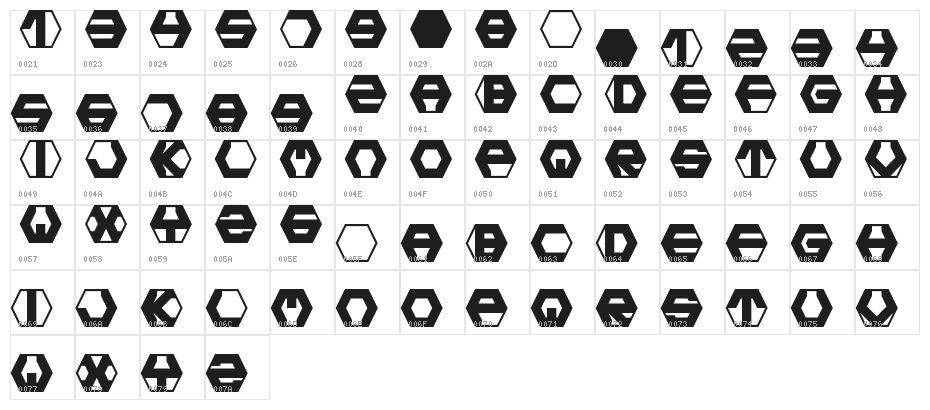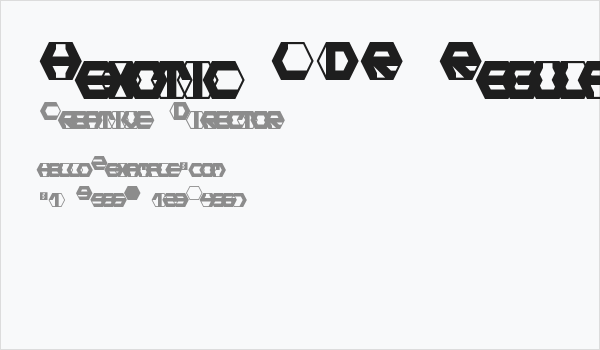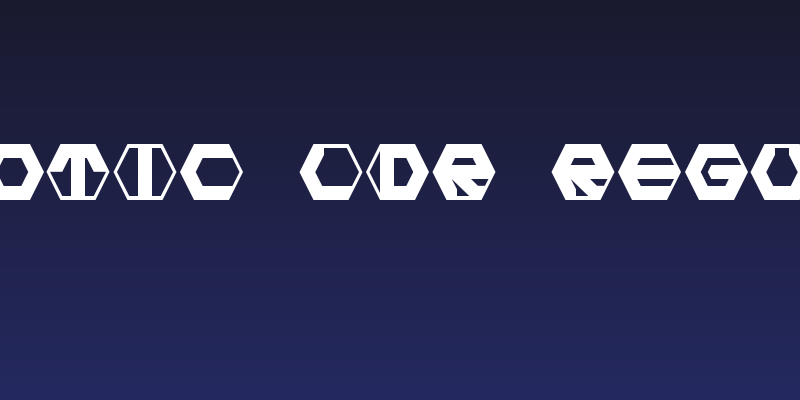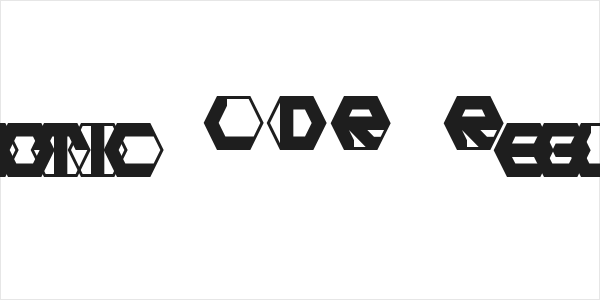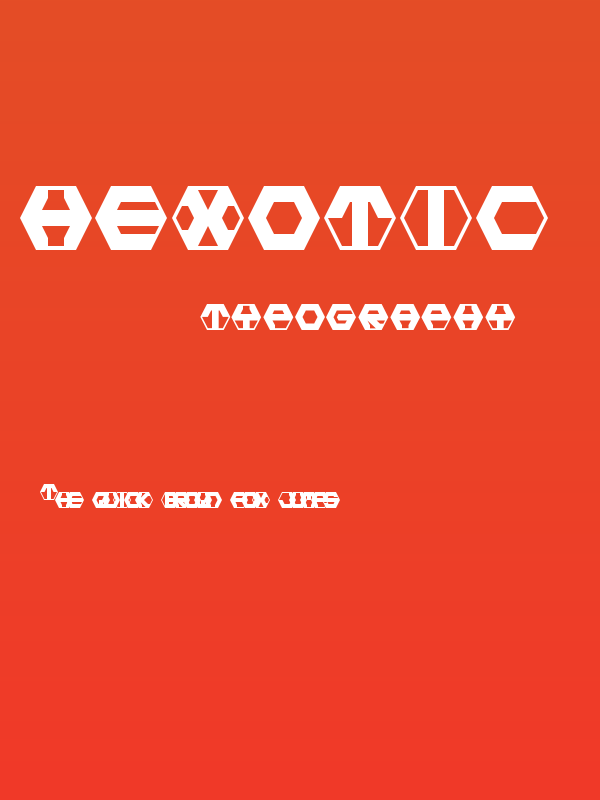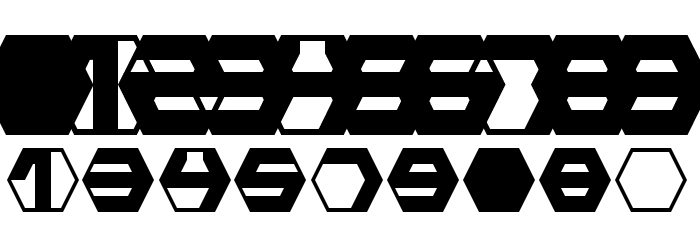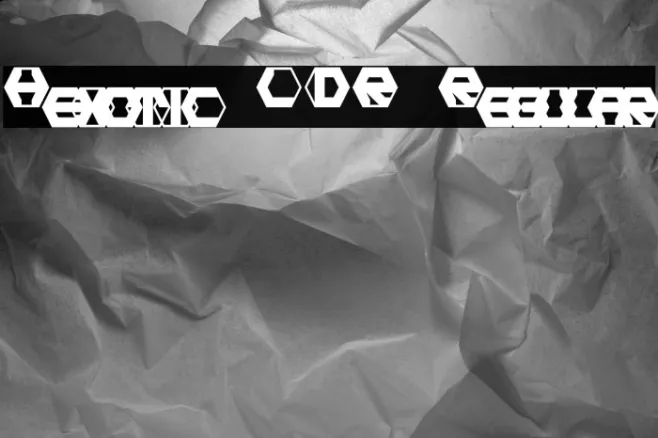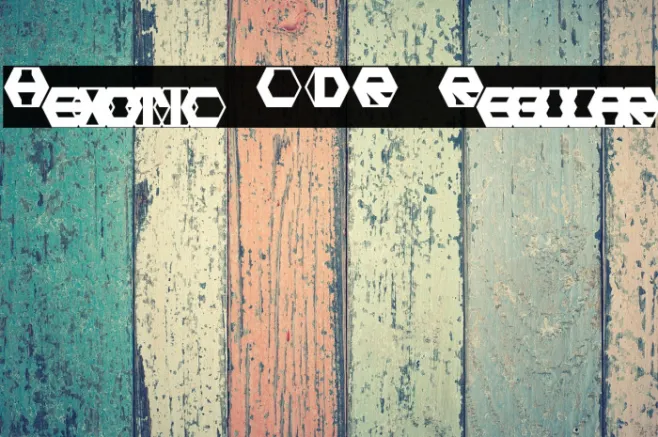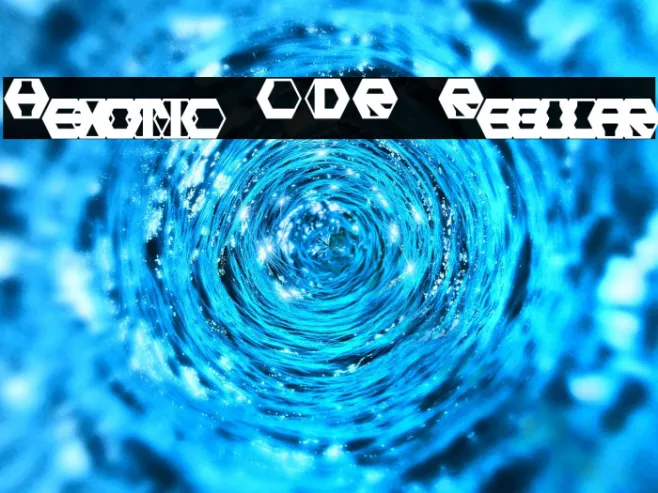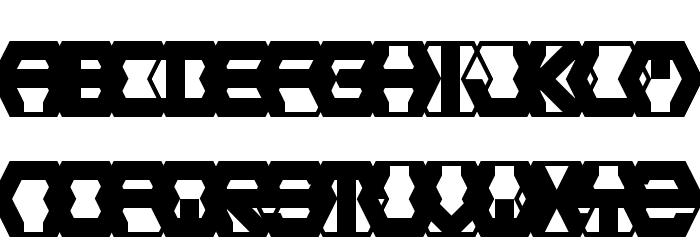
Hexotic LDR Regular Font
Hexotic LDR Regular Description
This font features a unique geometric design, with each character encapsulated within a hexagonal shape. The bold, angular lines create a futuristic and industrial aesthetic, making it stand out with its distinctive style. The uppercase and lowercase letters, as well as numbers and special characters, all maintain this consistent hexagonal theme. The font's design is highly decorative, with a strong visual impact that is both modern and edgy. The characters are tightly spaced, enhancing the compact and cohesive look of the font.
| Proposed Projects | Ideal for sci-fi themed projects, tech branding, video game titles, and modern poster designs. |